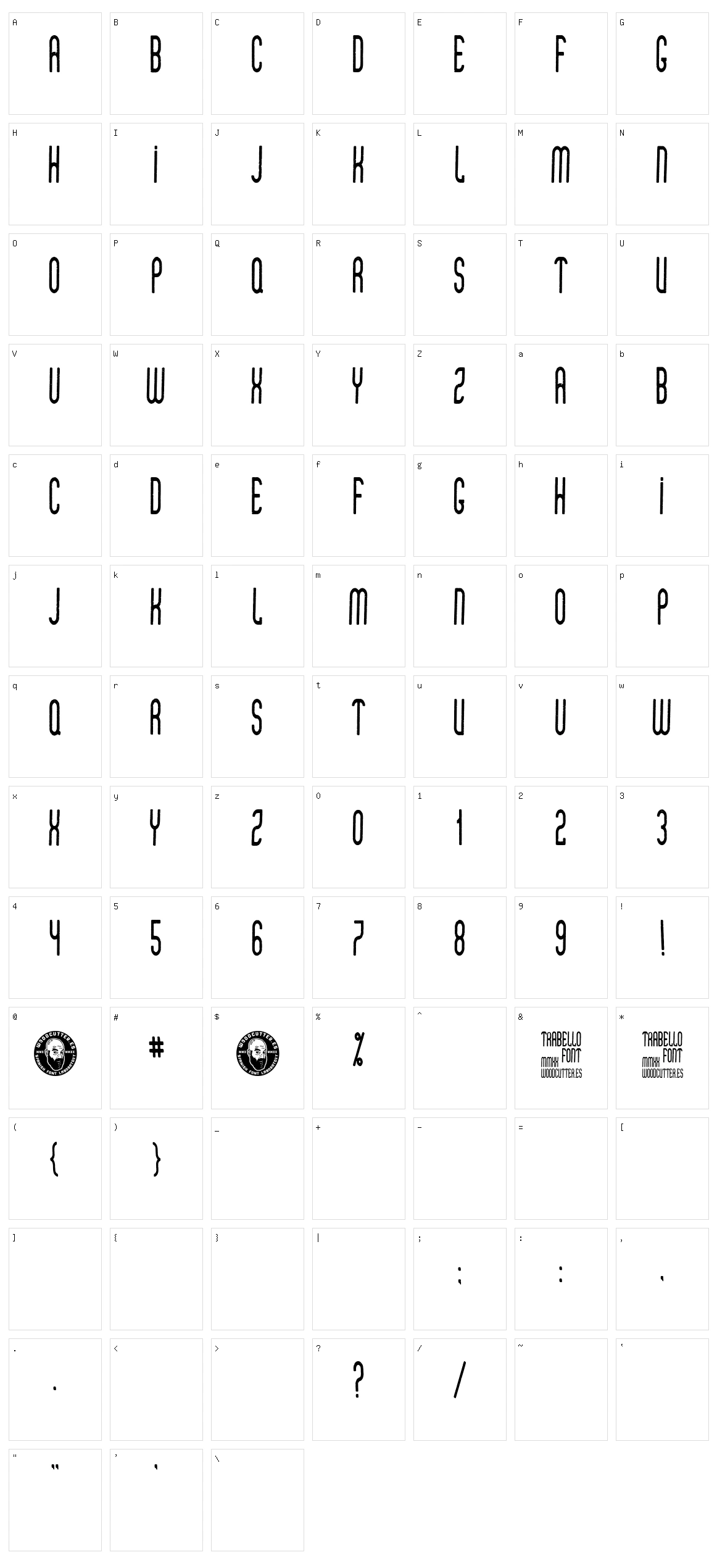
The free font Trabello is carefully designed by Woodcutter, showcasing a thoughtful balance of creativity and usability and falls under the Eroded font style. When you download the ZIP file, it contains only 71.03 KB of font files, making it lightweight and quick to download. Please review the license details below to understand permitted usage and distribution rights. If license information is not available, we recommend using this font for personal projects only or contacting the author directly for commercial usage permissions.